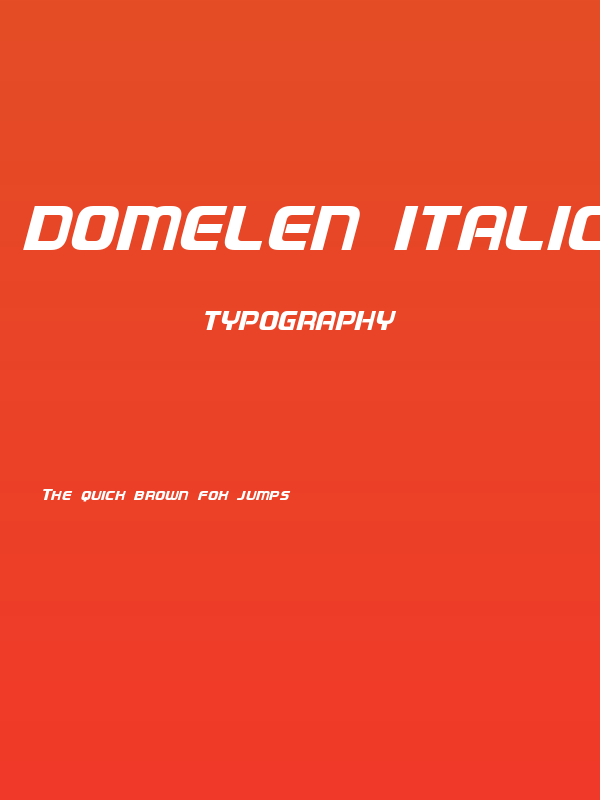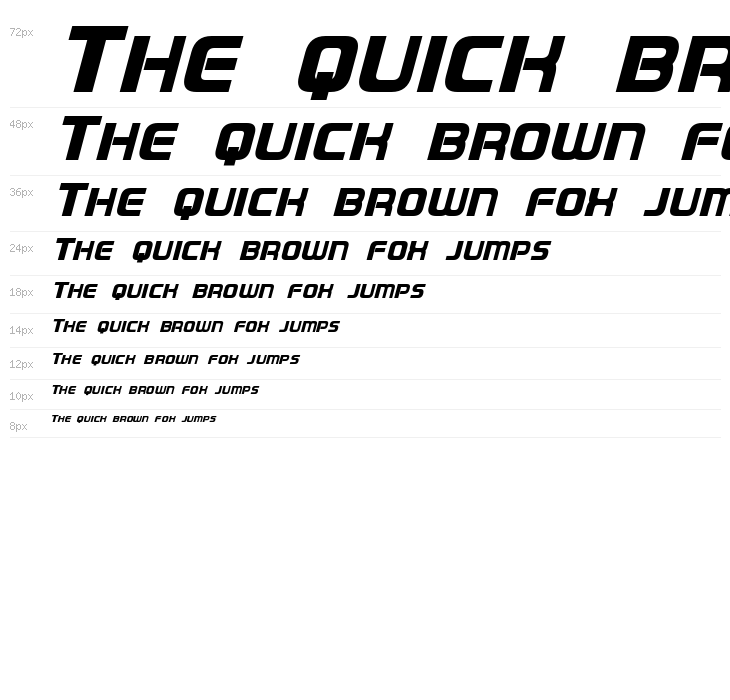
Domelen Italic Font
Domelen Italic Description
This font features a sleek, italicized design with a modern and dynamic appearance. The characters are slightly slanted, giving a sense of motion and speed. The strokes are bold and consistent, providing a strong visual impact. The font maintains a uniform width across all characters, ensuring readability and balance. Its geometric shapes and clean lines make it suitable for contemporary design projects. The numerals and special characters are crafted with the same attention to detail, ensuring a cohesive look throughout. This font is ideal for projects that require a bold and modern aesthetic.
| Use Case | Logos, Headlines, Branding |
| Proposed Projects | Ideal for branding, sports team logos, automotive designs, and modern advertising campaigns. |